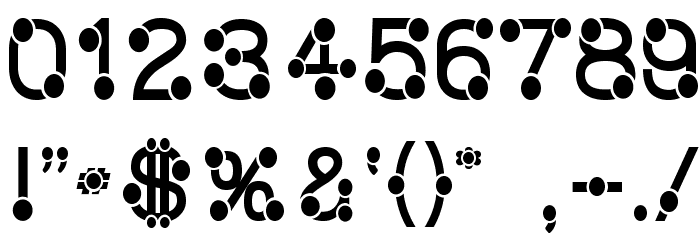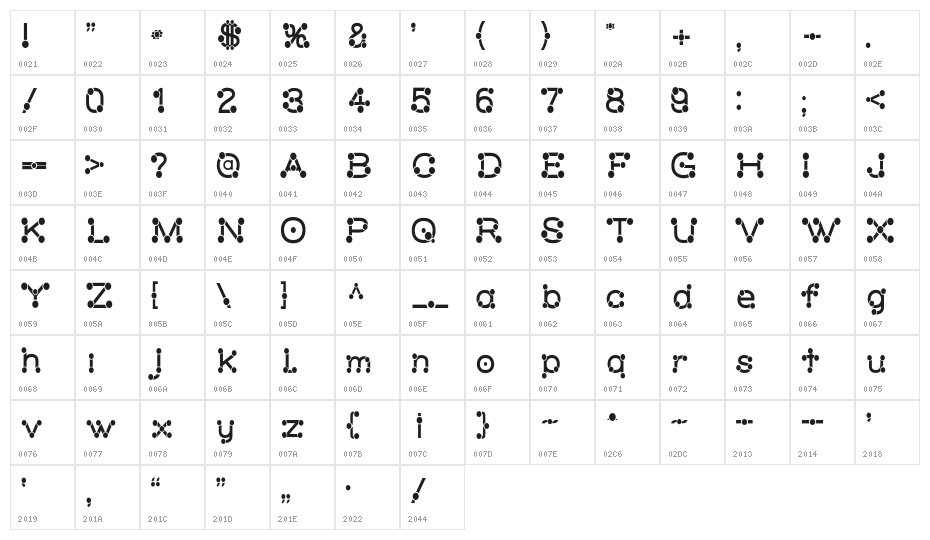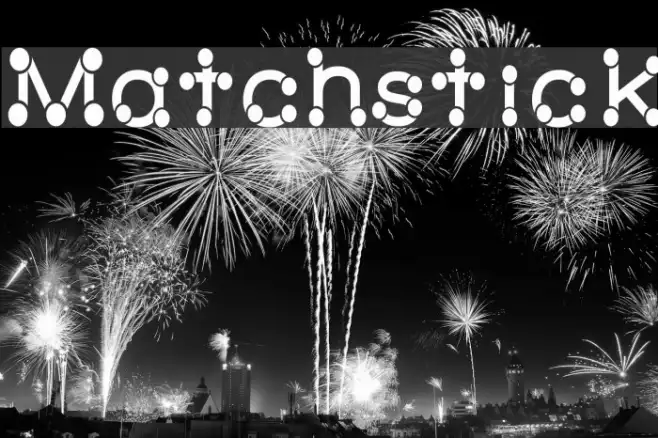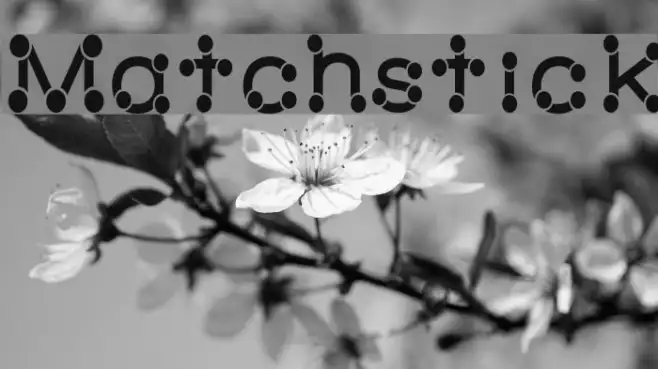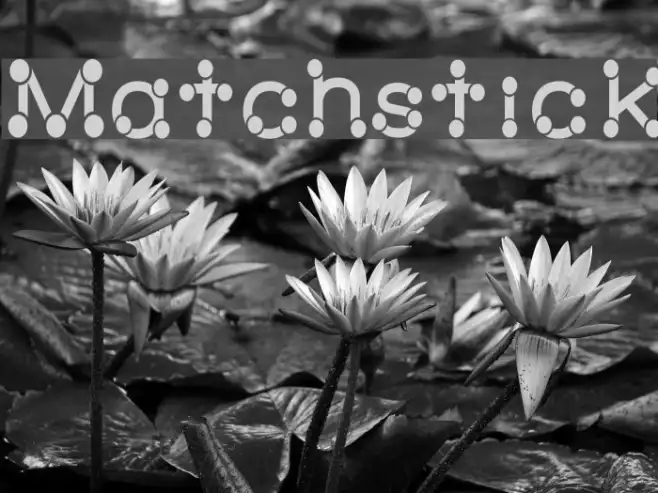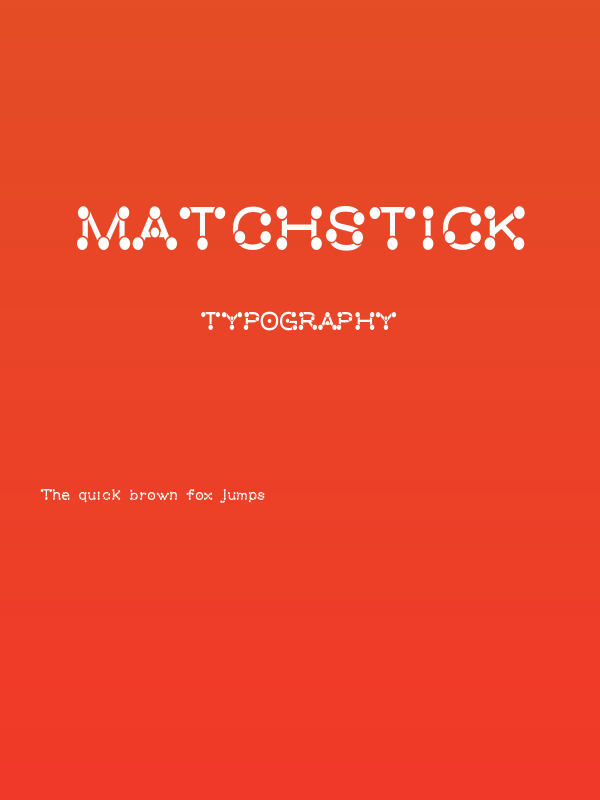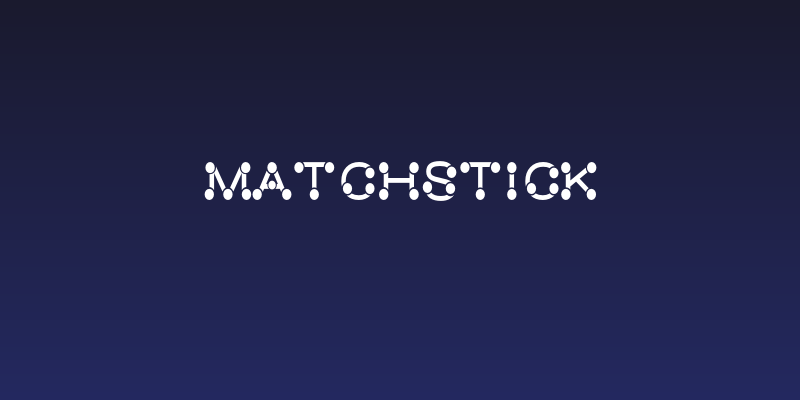
Matchstick Font
Matchstick Description
This font features a unique and playful design, characterized by its dotted and linear elements that resemble matchsticks. Each character is constructed with a series of dots connected by straight lines, creating a geometric and modular appearance. The font maintains a consistent structure across uppercase, lowercase, numerals, and special characters, offering a cohesive look. Its distinct style makes it stand out, with a modern and artistic flair that can add a creative touch to various design projects.
Proposed ProjectsIdeal for creative projects such as posters, logos, and branding that require a modern and artistic touch.